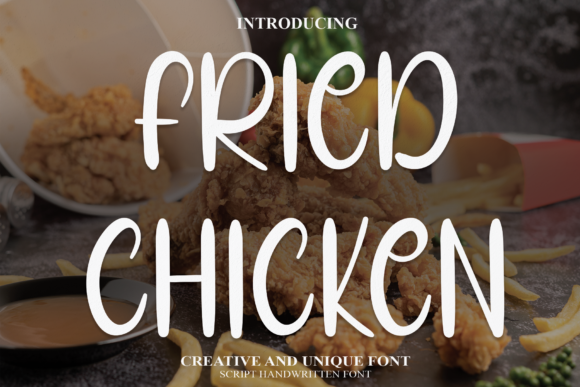
Prepare to tantalize your senses with Fried Chicken Font, the scrumptious script font that will leave your designs finger-lickin' good!
Indulge in the irresistible charm of Fried Chicken Font, a culinary masterpiece meticulously crafted to elevate your creations to mouthwatering heights. Each letter dances across the page like a seasoned chef, expertly blending sweetness and sophistication with every stroke.
Picture your logo, headlines, and branding transformed into delectable delights, captivating your audience with a savory blend of style and allure. Fried Chicken Font is the secret ingredient your designs have been craving, adding a savory touch to everything from corporate identities to apparel designs.
Like a well-seasoned dish, Fried Chicken Font pairs perfectly with any project. Its versatility is a culinary marvel, enhancing posters, music, movies, and games with equal finesse. Magazines, books, and comics come to life with a tantalizing taste, while websites and social media platforms become irresistible feasts for the eyes.
So why settle for ordinary fonts when you can savor the extraordinary flavor of Fried Chicken Font? Each download is a culinary adventure, a journey into a world where your designs take on a life of their own. Let Fried Chicken Font be the secret ingredient that transforms your projects into masterpieces, leaving an unforgettable aftertaste that will keep your audience coming back for more.